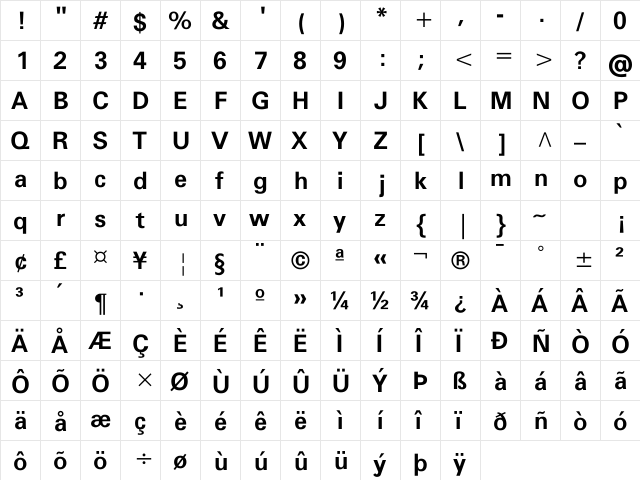
FreeUniversal Bold
Design Context for FreeUniversal Typeface
FreeUniversal takes a measured approach to typography — its balanced proportions and neutral character make it a reliable workhorse for both digital and print work. Its bold stroke weight gives it real presence on the page.